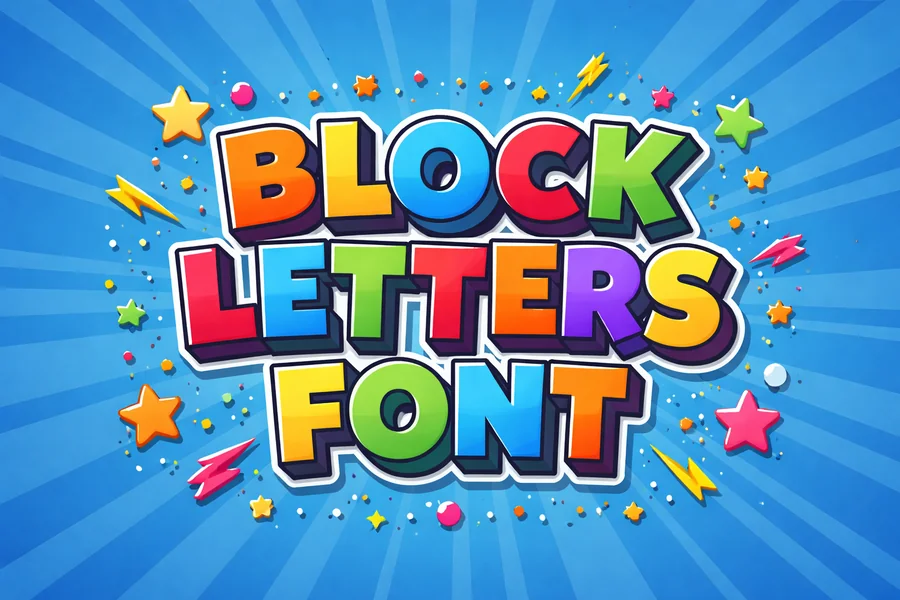
Block Letters Font – A Clear and Bold Style Guide
One of the most well known and popular types of lettering and writing fonts is block Letters font. It is also characterized by its clear, bold and easy to read format where each letter is handwritten separately and mostly in capital letters. Due to its simplicity and legibility block lettering has found application in forms, signage, educational materials, and graphic design.
The knowledge of the work of block lettering and the knowledge of when to employ it can greatly impact the readability and visual impression. We shall examine the features of this style, its applications, advantages, and tips to use it in writing or designing in this paper.
What Is Block Lettering?
Block lettering is a type of writing in which the letters are made separately and are not attached to each other. In contrast to cursive writing, the characters are independent, and their lines tend to be straight and brutal.
Block lettering is usually written using upper case or letters, but lower case block designs do exist in typography. This style is aimed at making it readable. The letters would be made legible and easily differentiated.
As an illustration, when filling official forms, one is usually requested to write in block letters. Such teaching will make the information easy to read by others and minimize the possibility of misinterpretation.
Block lettering is also possible in various forms such as handwritten, printed and digital types of typography. The reason why designers tend to use variation of block lettering in logos, headline, poster and branding materials is that the letters are prominent and the one that people can identify.
Key Characteristics of Block Letters
Block lettering can be characterized by a number of characteristics that can be used to tell it apart. The following qualities make it popular with various industries and writing scenarios.
The first and the foremost is that the letters are not interrelated. Every character is isolated, giving the effect of a clean and organized look. This organization makes the document easier to read, particularly when one requires to comprehend information fast.
The use of straight lines and simple shapes is another feature. Several block-style fonts are based on geometric structures, thereby providing a bold and structured appearance. This renders them applicable in titles, signs and labels.
The distance is also crucial. The letters in this type are normally spaced well so that the characters become clear. Adequate spacing will avoid mixing of similar letters like the ones at the end of the words like I and L.
The block lettering is also usually written in uppercase. The uppercase letter has more tendency to be distinguished visually and that is why it is mostly used in the forms, instructions and the headings.
Common Uses of Block Letters Font
Block style lettering features in numerous places of daily life. It is well-written and easy to understand, and is thus the best choice in a scenario where readability is crucial.
The official documents and forms are one of the most widespread applications. Government agencies, banks and schools tend to insist that information be typed in block letters so that it could be easily read by various individuals or scanned by machines.
Signage is another frequent use. Bold block fonts are commonly used in road signs, safety warnings, building labels, etc. The letters are easy to read remotely and assist in conveying key messages within a short period of time.
Block-style typography is popular in the design world to use in headlines and posters. The designers select these fonts in cases where the text is supposed to be highlighted and to attract the attention. The block lettering is bold in its structure and thus visually striking.
Block lettering is also applied in educational settings. It is a writing style that is commonly introduced to students by their teachers as a basic form of writing since it aids children to learn the shapes of letters in a clear manner before they proceed to learn the cursive type of writing.
Tips for Writing Block Letters Clearly
When writing clear block letters one must pay attention to the spacing, structure and consistency. A person can become a good block letterer with just some simple tricks.
First, focus on uniform size. It is also advisable to maintain the same height and width of letters in order to achieve a harmonious look. This will make your writing more systematic and professional.
Second, have regular letter and word spacing. Cluttered letters are hard to read and over-spacing may create a distance between the provisions. Even spacing facilitates readability.
Third, straight and confident strokes. Simple geometric forms are usually used in block lettering, and straight lines and evident angles are significant.
The next tip which is useful is to write slowly at the beginning. Letters may get uneven or unclear upon rushing. Working with writing blocks, one will get used to writing down letters in a more regular and consistent way.
Lastly, think about using paper or guidelines as you go through a practice. These templates are used to ensure the uniformity of letter height and alignment particularly among the novices.
Block Letters in Modern Typography and Design
Block fonts have become numerous inventive variations in the modern typography. Designer also experiments with shapes, thickness and style but still tries to retain the clarity that characterize block lettering.
As an example, there are bold and heavy fonts of block that are ideal in the headline and branding. Others are less heavy and less minimal and this suits in the present day architecture design.
Block-style typography has also been easy to customize using digital design tools. Spacing, scale and alignment can be changed so that the designer can make text attractive to the site, advertisement as well as social media graphics.
The other design trend in the contemporary world is the combination of block-style fonts with other types of typography. The contrast and visual appeal of pairing bold block lettering with either elegant scripts or minimalist fonts are achieved.
Due to its flexibility, block-style typography will always be topical in print and digital design.
Final Thought
Block lettering will always have been a classic type of writing and typography due to its simplicity, understanding, and adaptability. It is still being significant in the realm of communication, whether it is in the school classrooms or in professional design studios.
It is very suitable in documents, signage, and educative material due to its capability of displaying information clearly. Meanwhile, designers like its aggressive look and flexibility in artistic work.
With a knowledge of the nature of the block lettering and effective practice of the good writing methods, everyone can enhance his or her capacity to make this style efficient. Be it on completing forms or coming up with visual material, block lettering makes your message simple to read and to be visually stimulating.
FAQs
What is Block Letters font?
Block Letters font refers to a lettering style where each letter is written separately, usually in uppercase, making the text clear and easy to read.
Why are block letters font used in official forms?
They are used because they improve readability and reduce the chances of misinterpreting handwritten information.
Are block letters font always written in uppercase?
Block letters font are commonly written in uppercase, but some fonts also include lowercase versions designed in the same clear style.
Is block lettering the same as print writing?
Block lettering is a type of print writing, but it specifically focuses on bold, separate letters that are easy to read.
Where are block-style fonts commonly used?
They are often used in signage, educational materials, official documents, posters, and graphic design.